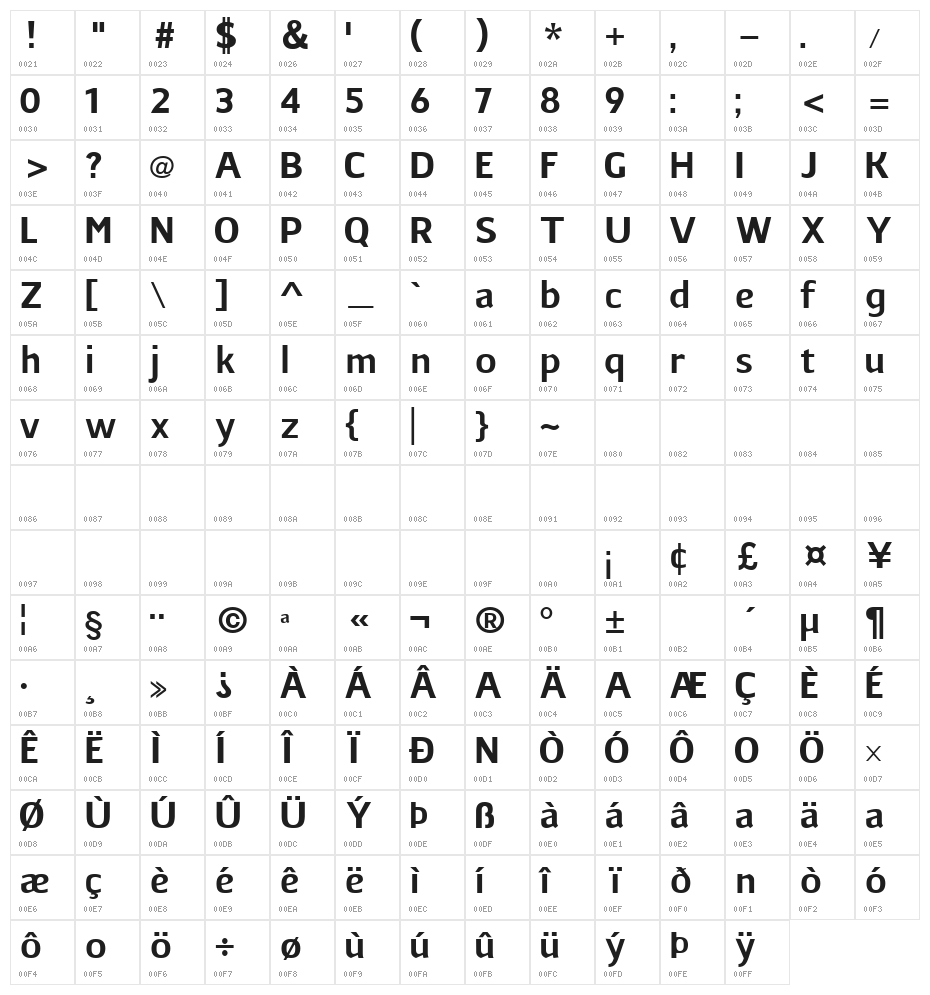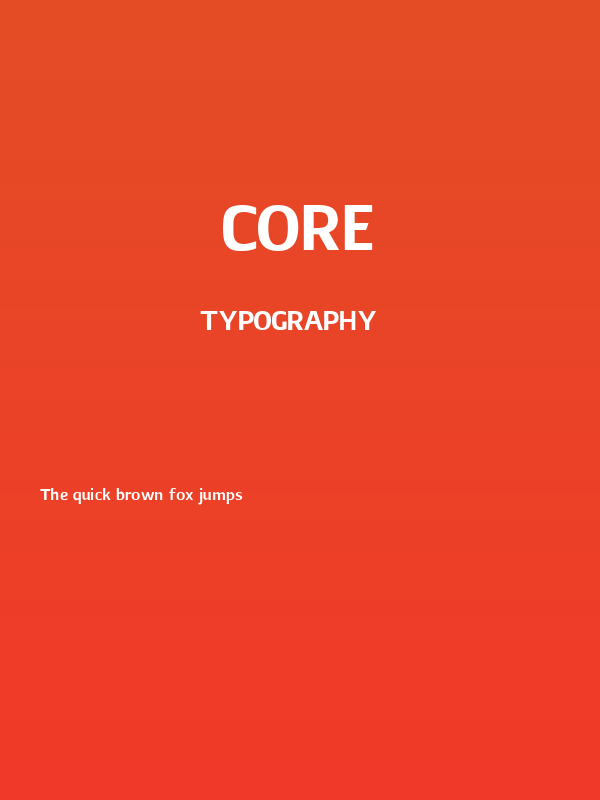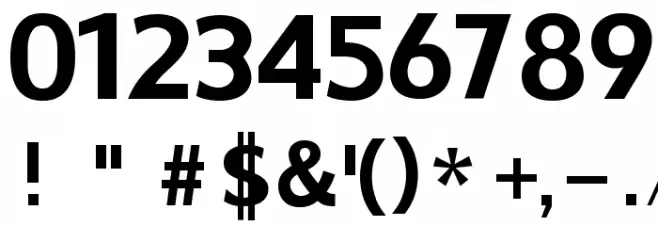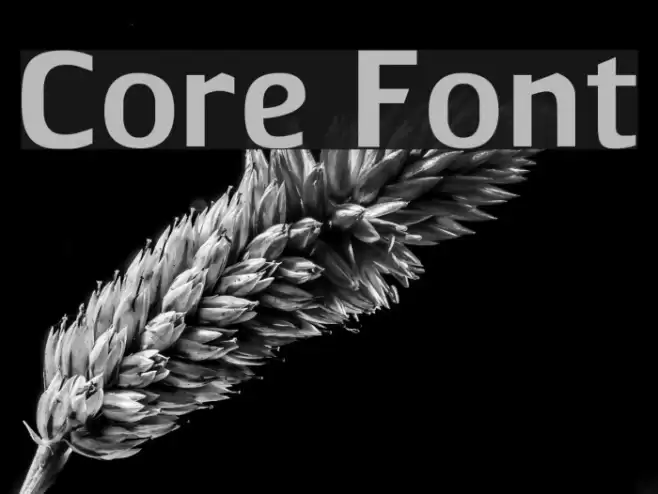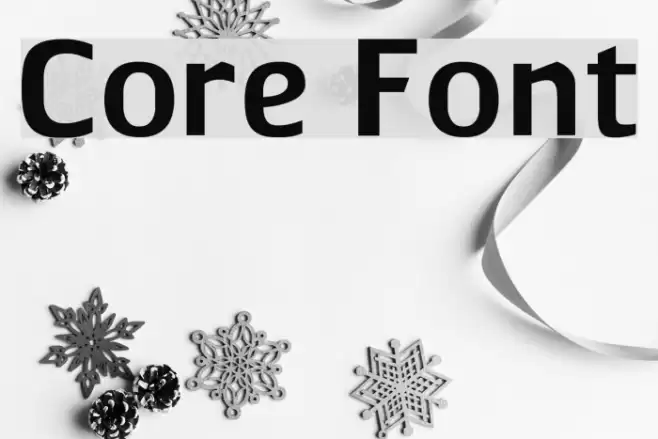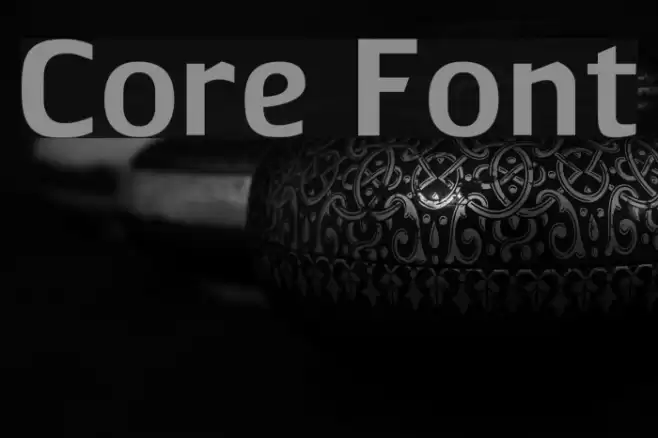
Core Font
Core Description
This font features a clean and modern sans-serif design, characterized by its bold and uniform stroke weight. The letters are well-proportioned, with a slightly condensed appearance that enhances readability while maintaining a strong visual impact. The uppercase and lowercase letters are distinct, with the lowercase having a slightly rounded quality that adds a touch of friendliness to the overall look. The numerals are clear and consistent, matching the style of the alphabet. Special characters are well-integrated, ensuring versatility for various applications. This font's simplicity and clarity make it suitable for a wide range of design projects.
| Proposed Projects | Ideal for branding, advertising, web design, and editorial projects where clarity and impact are essential. |